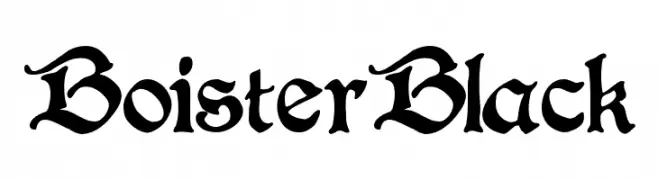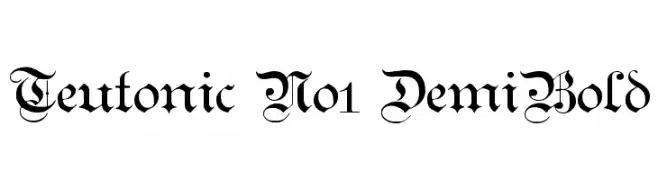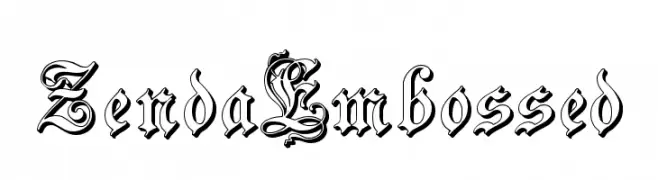
( Paul Lloyd Fonts )
A bold, ornate blackletter font with intricate details and a gothic style.
( Fonts by Paul Lloyd )
An ornate, embossed blackletter font with intricate details and a historical feel.
( Fonts by Paul Lloyd )
A bold, ornate blackletter font with dramatic flourishes and historical elegance.
( Fonts by Paul Lloyd )
A classic blackletter font with ornate, historical elegance.
( Fonts by Paul Lloyd )
An ornate blackletter font with intricate, angular designs and historical elegance.